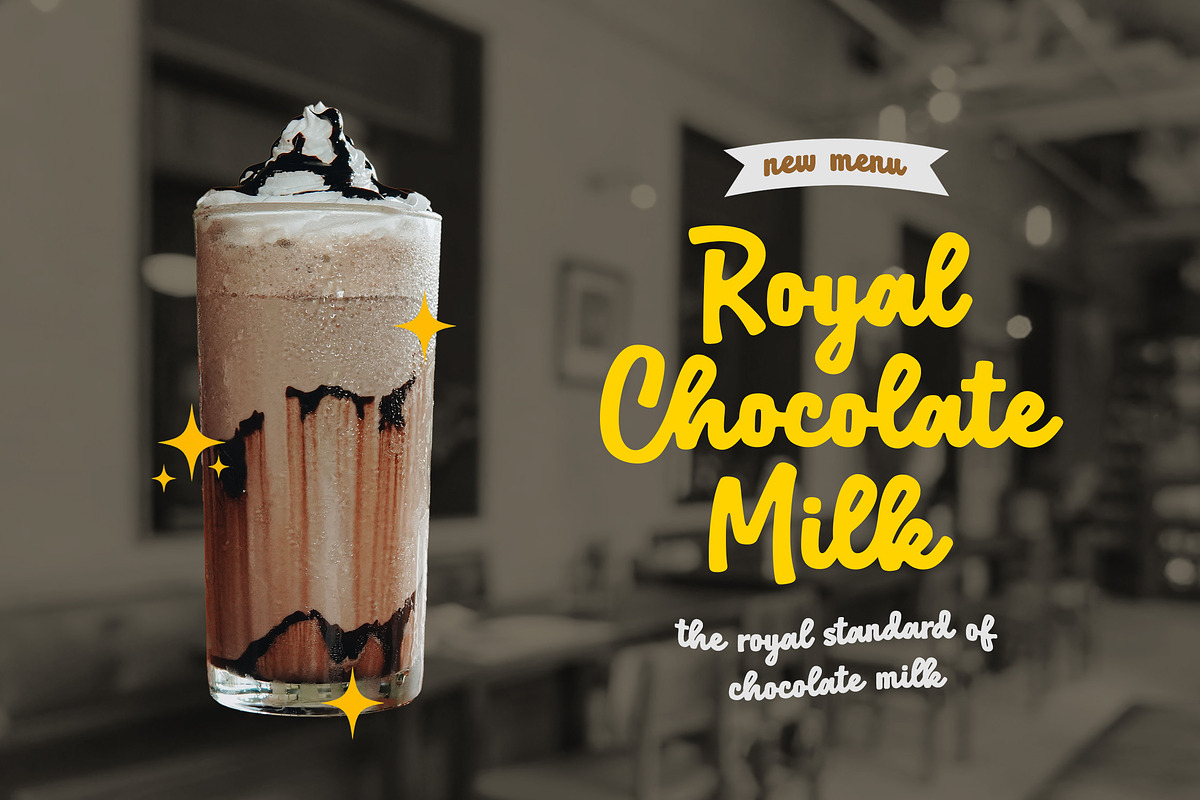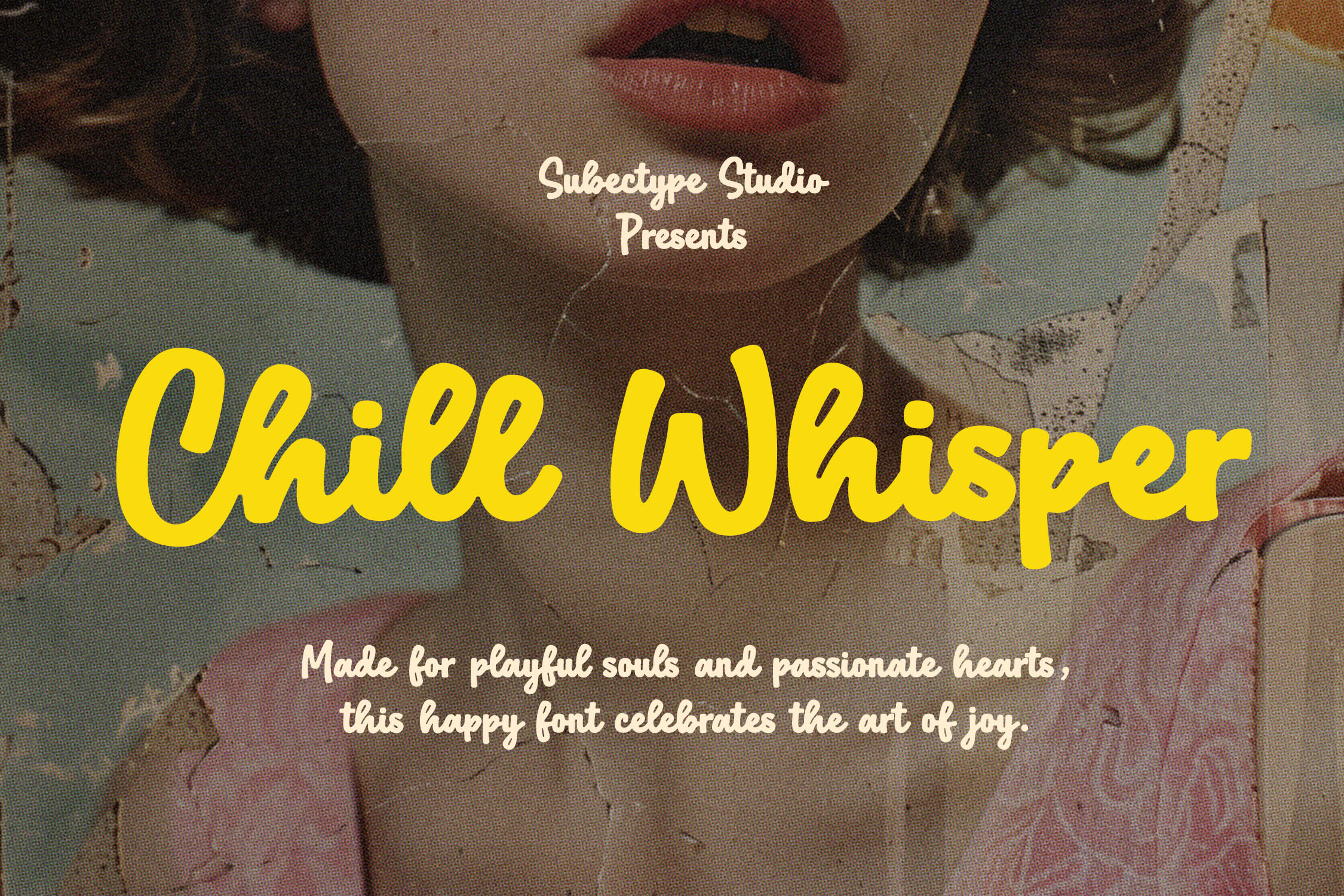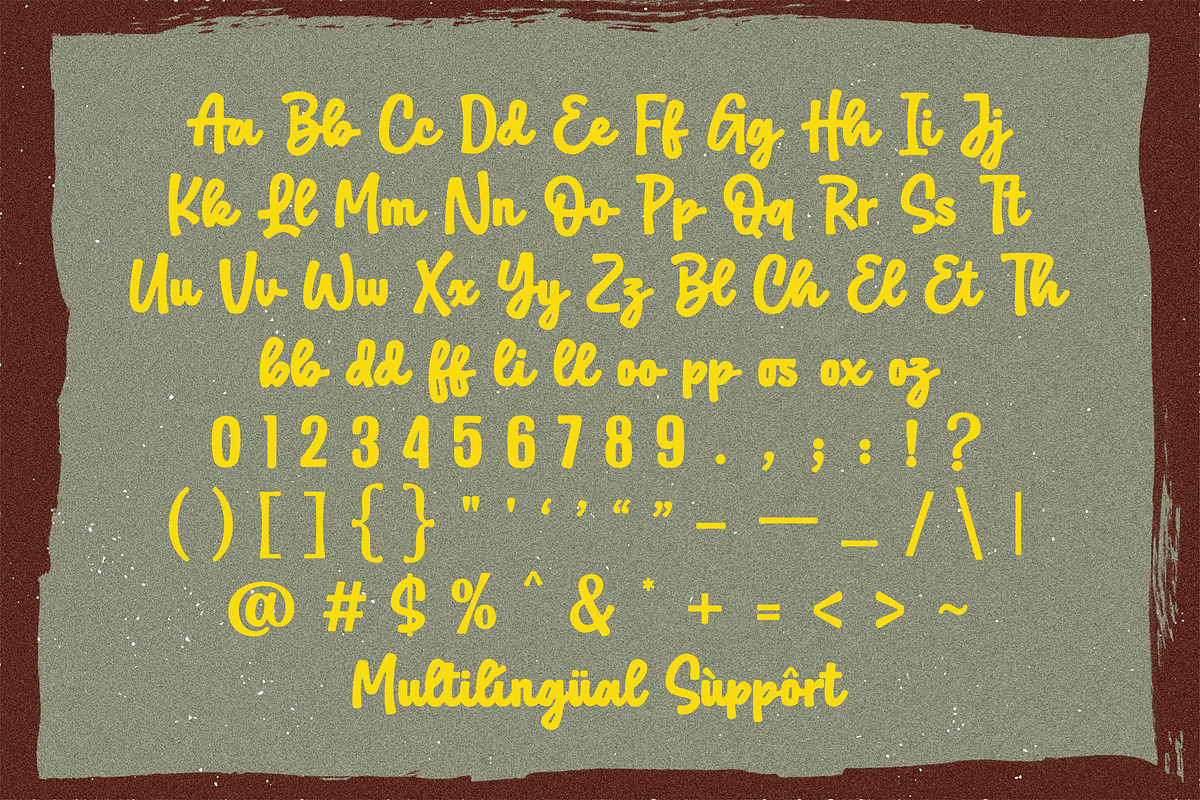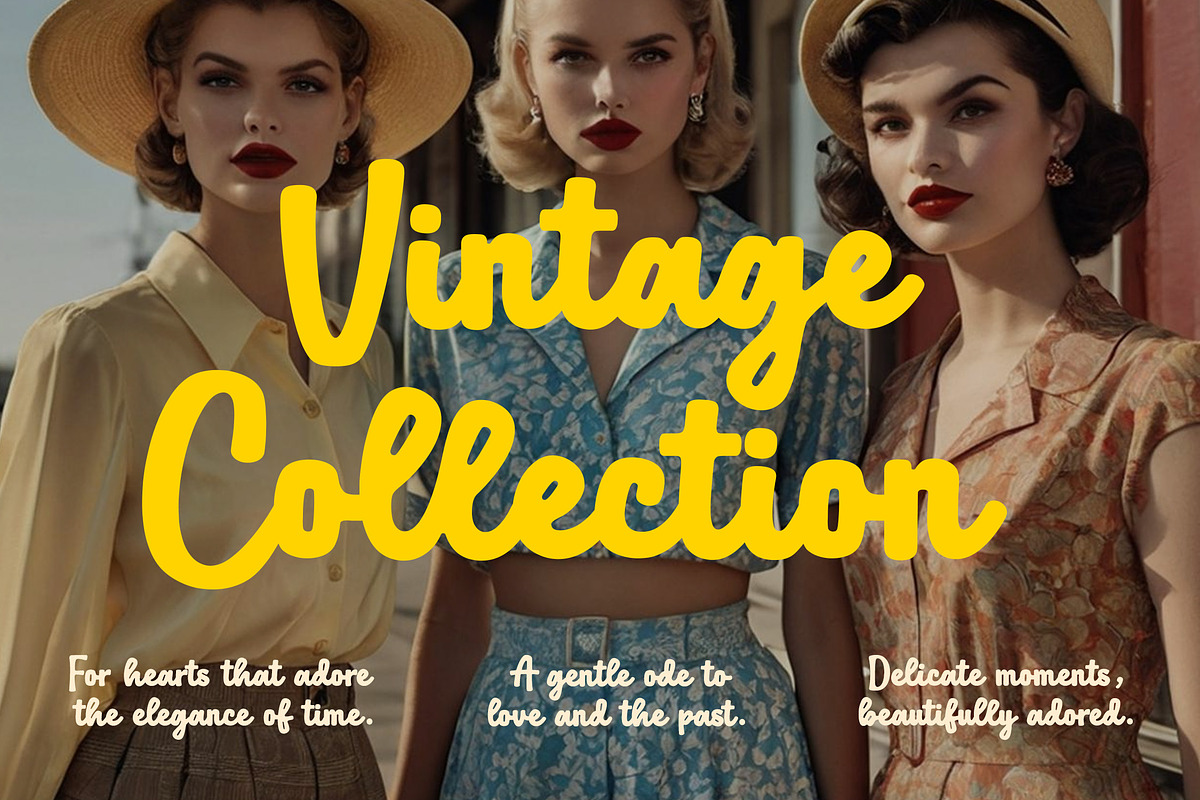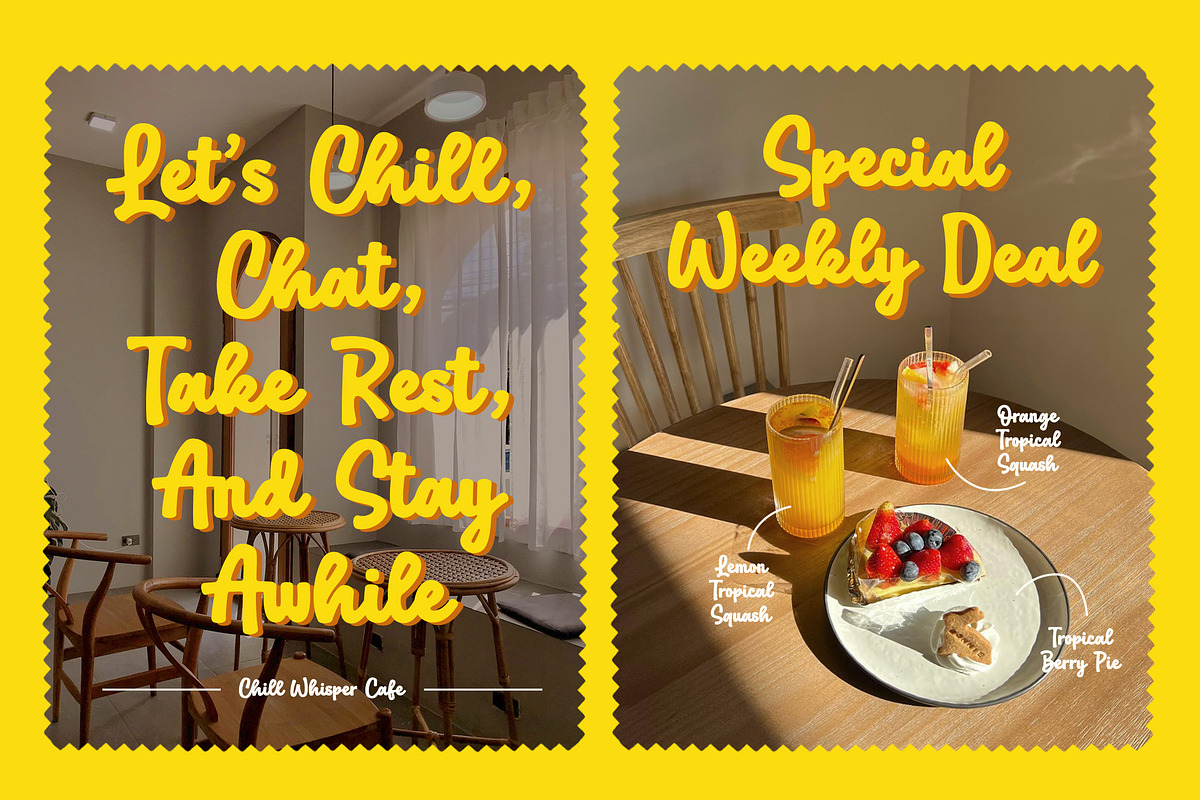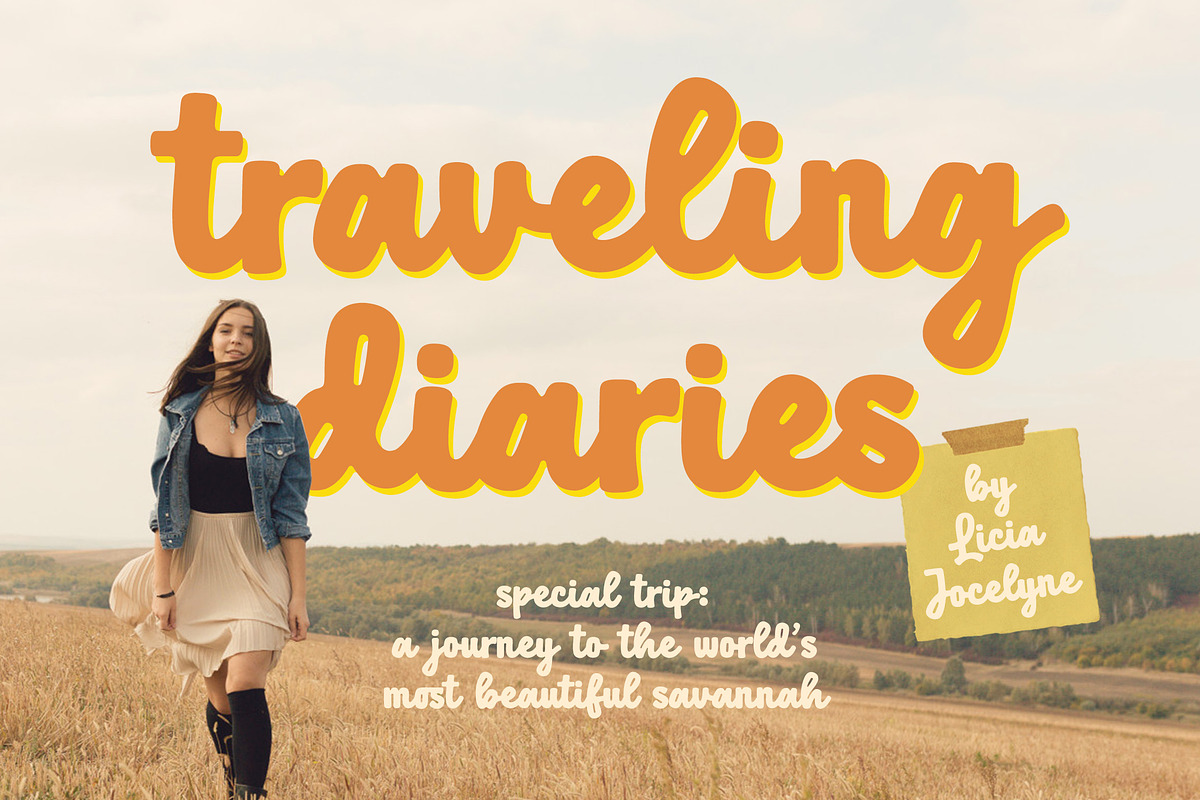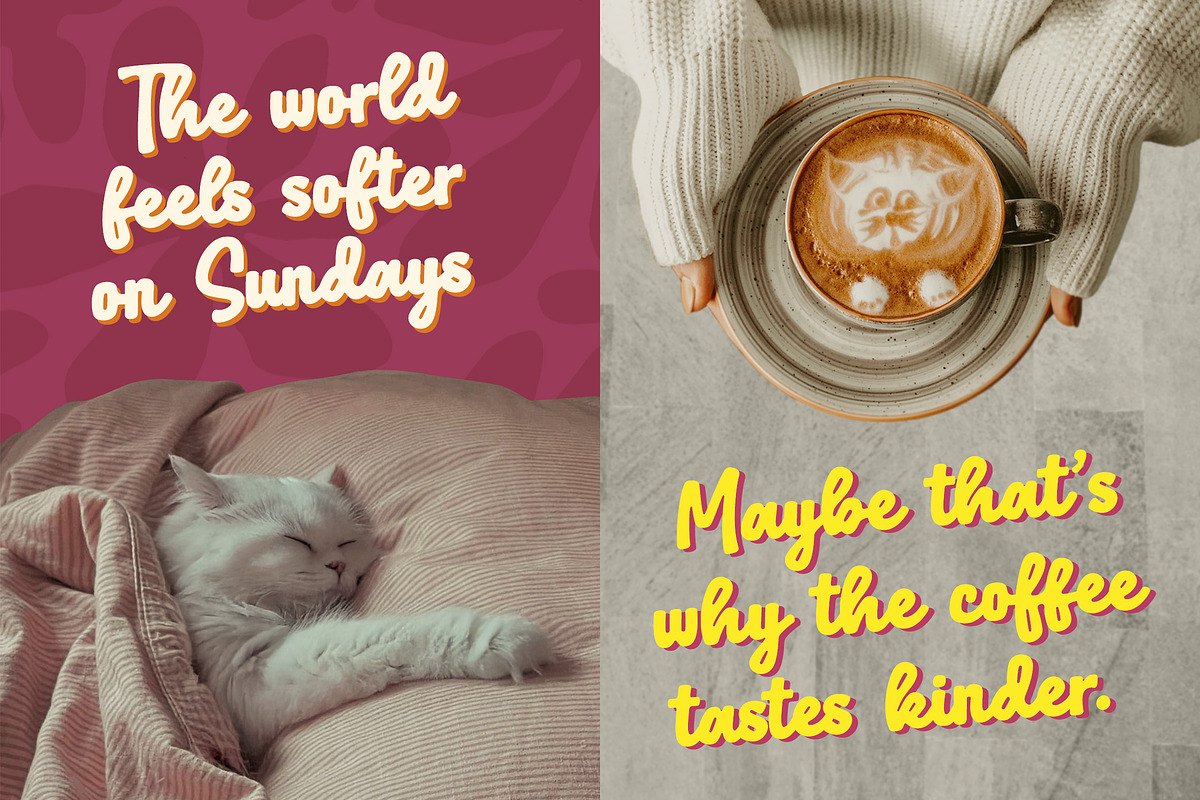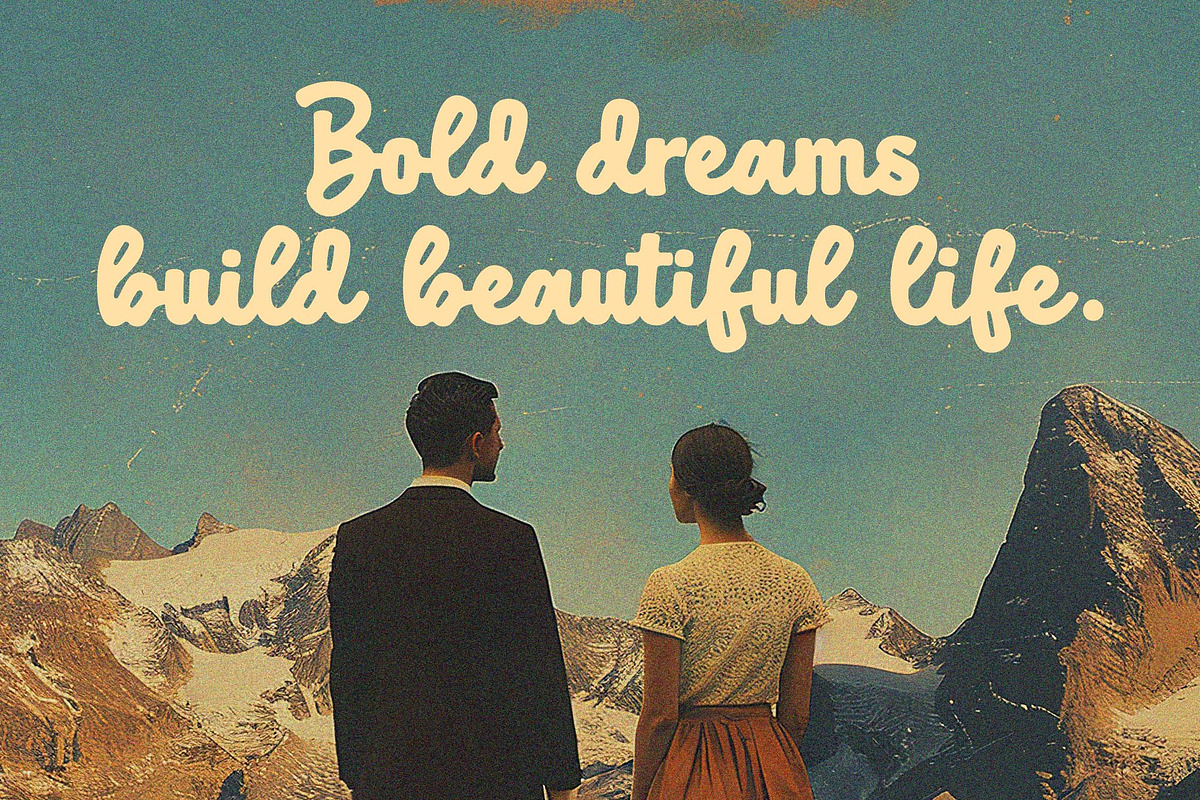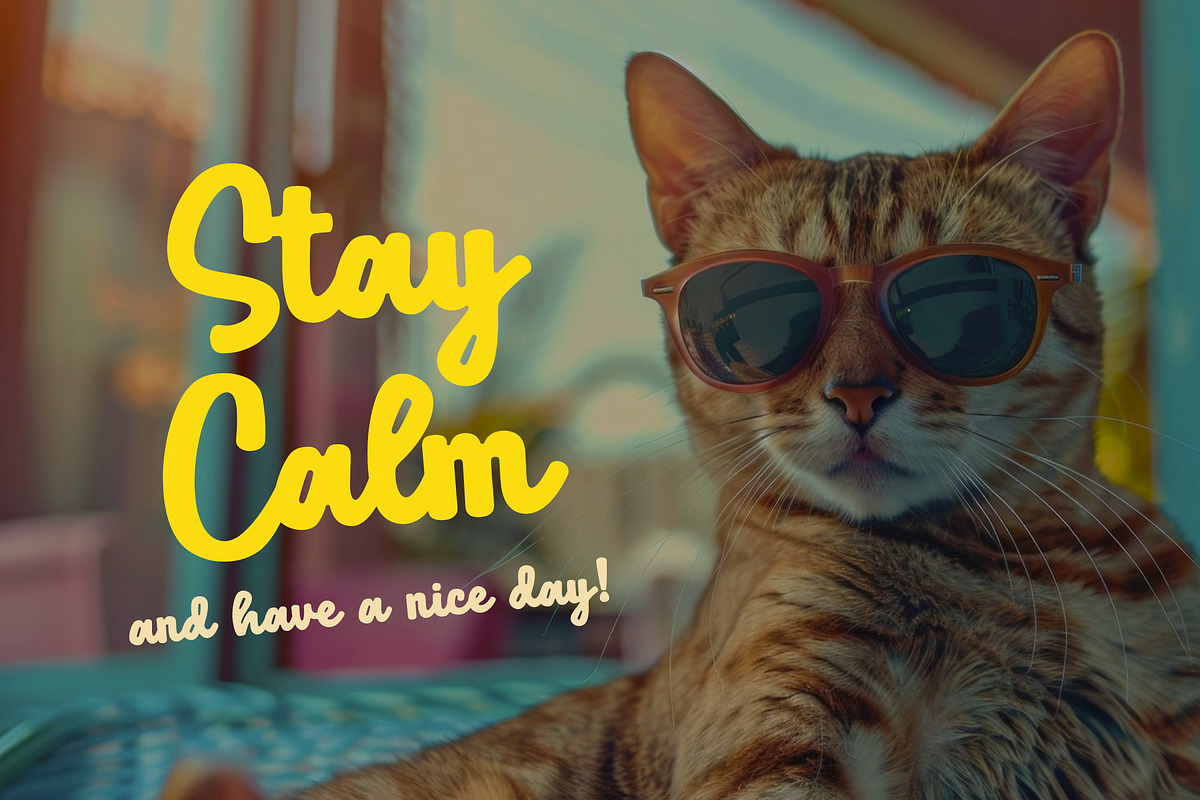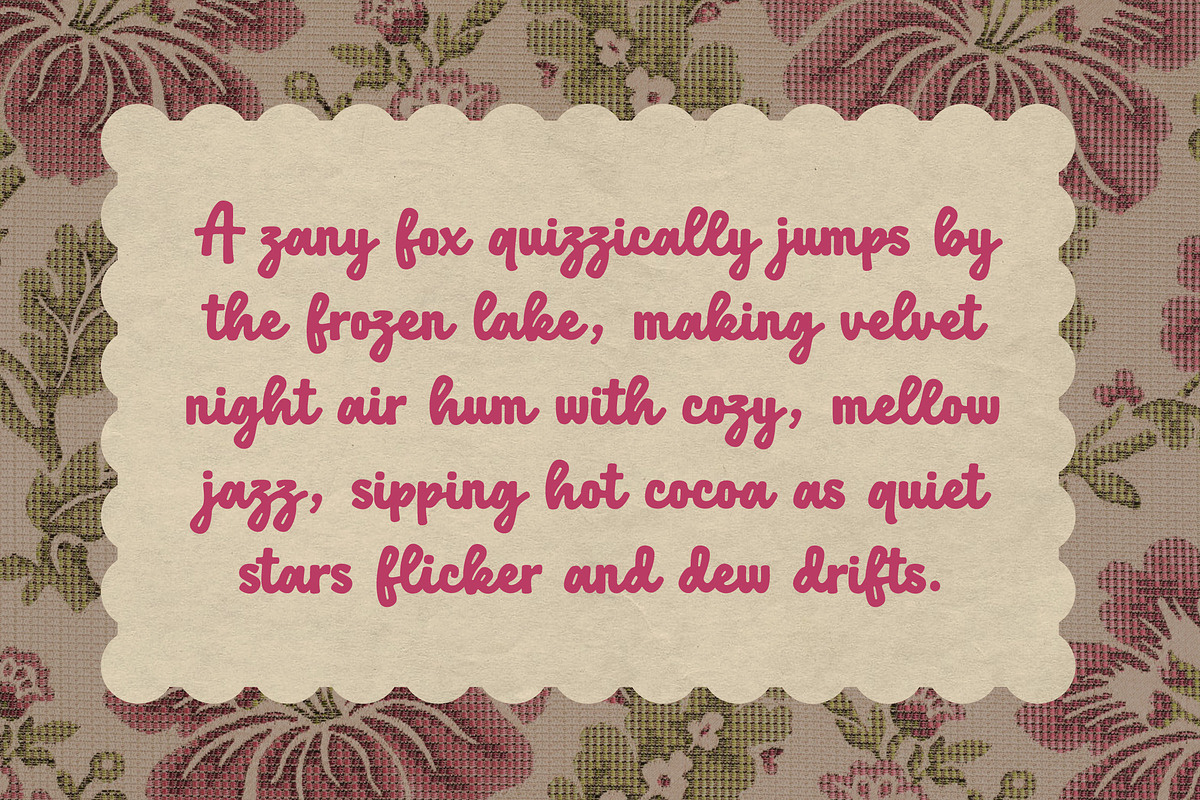
Chill Whisper - Fun Script Font
Introducing "Chill Whisper Font" This bold script font radiates joy and confidence through every stroke. With its smooth curves and playful flow, it captures a fun and friendly spirit that makes any design feel welcoming and full of life. Perfect for branding, packaging, or creative projects that want to express happiness and warmth in a bold, stylish way.